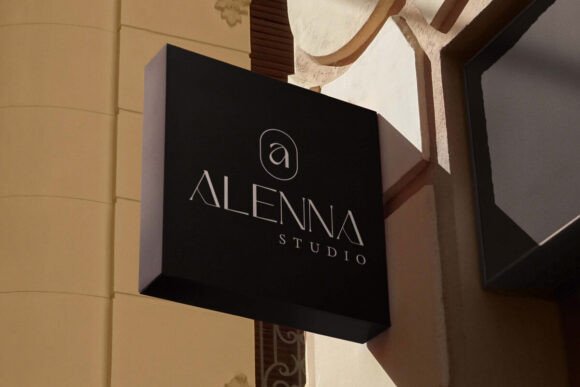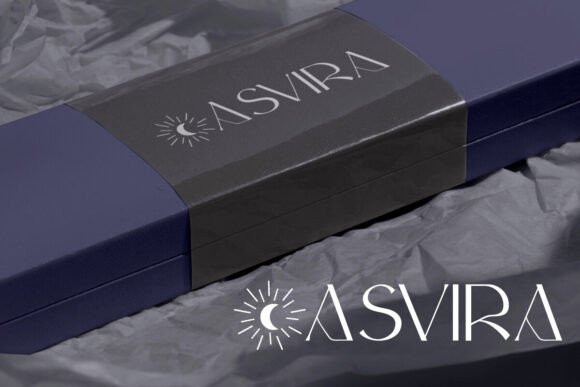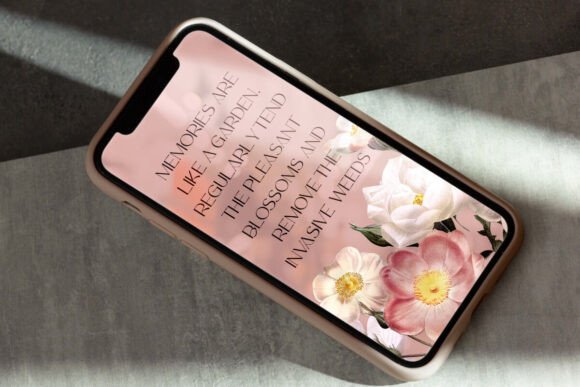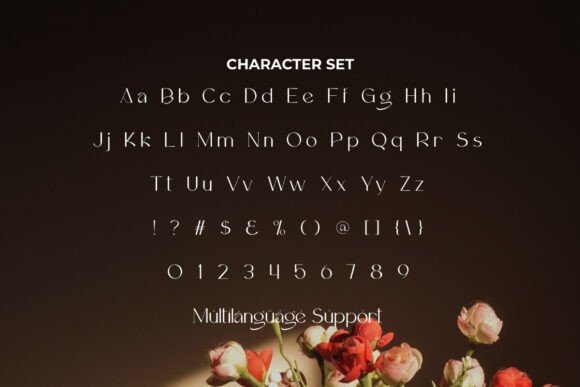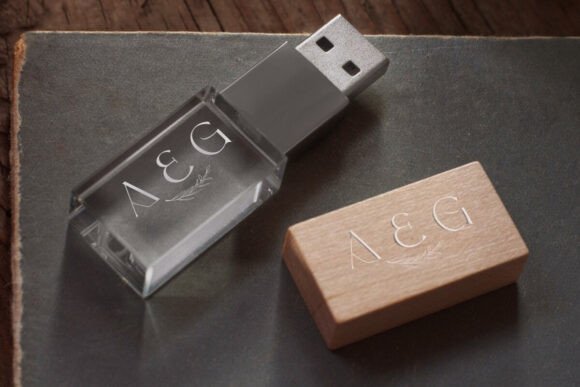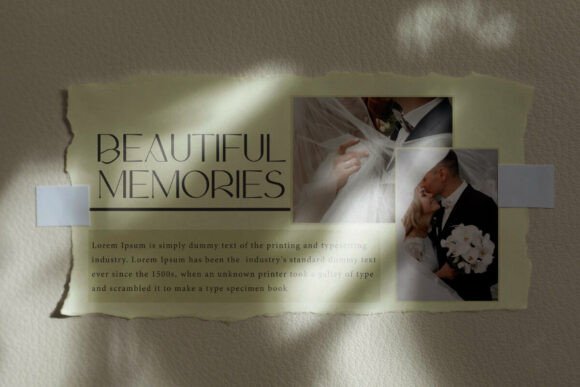
Introduction to Great Memories Font
Great Memories Font is a modern minimalist sans-serif display font.
This font has thin and sleek lines on the letters that will make your designs look stunning It would be the perfect choice for many industries, such as accessories and jewelry, advertisement, beauty products, café, fashion, furniture, handicrafts, printing, publishing, resorts and hotels, restaurants, and more.
Key Features of Great Memories Font
Why Choose Great Memories Font?